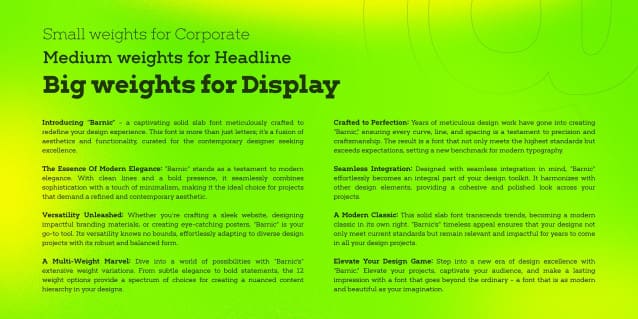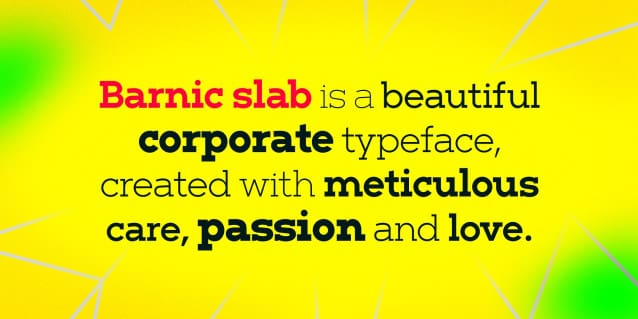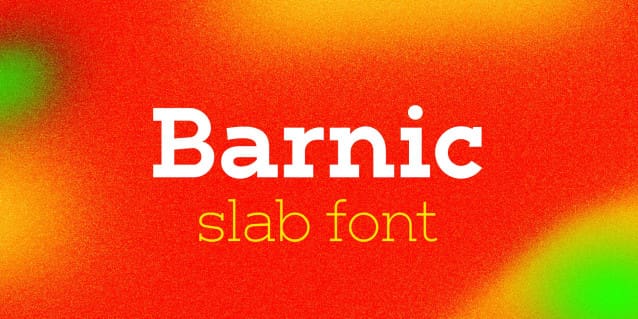
Barnic Slab Font Family
Barnic Slab Font Family is a modern geometric slab typeface tailored to elevate all your design projects, from UI and app design to web design, branding, posters, magazines, infographics, packaging, and beyond. With its sharp slab edges, BarnicSlab effortlessly radiates professionalism and trustworthiness. Boasting 12 font weight variations, Barnic Slab excels in delivering a multi-level content hierarchy in your design, ensuring your value is communicated clearly and easily.